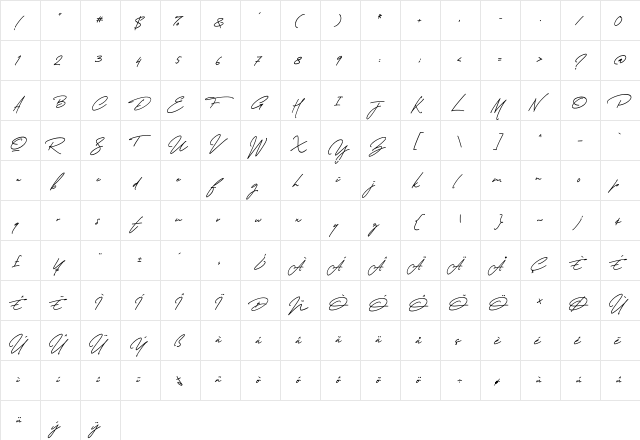
Thunder Stone Script Alt Regular
Design Context for Thunder Stone Script Alt Typeface
Thunder Stone Script Alt brings a calligraphic fluidity to the page — its connecting strokes and expressive curves give it an unmistakably human quality.
Font Pairing: Combine Thunder Stone Script Alt with a simple geometric sans for maximum contrast — the tension between flowing curves and clean structure is a classic typographic pairing.
Pro Tip: Pair Thunder Stone Script Alt with a clean sans-serif for supporting text. The contrast between fluid script and geometric structure creates an elegant typographic hierarchy.